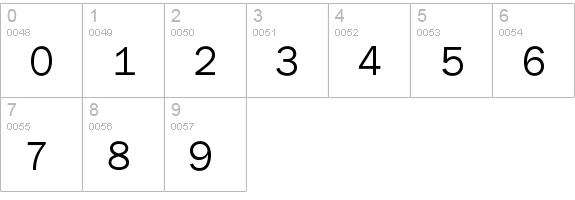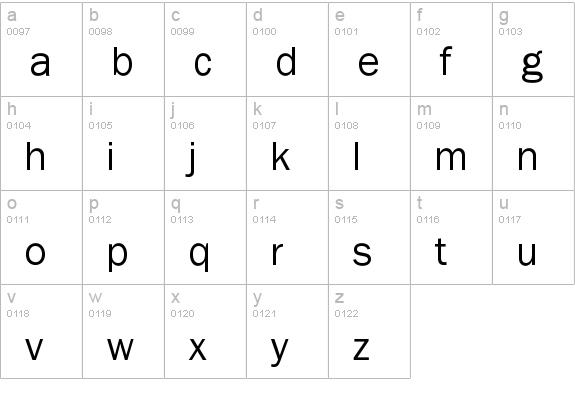
Franklin Gothic* Book Font Details
Franklin Gothic* Book is a comfortable, highly readable variant in the Franklin typeface family \xE2\x80\x94 well suited to long-form body text, articles, and editorial content.
Franklin Gothic Book is a classic and elegant font that exudes sophistication and timelessness. With its clean lines and balanced proportions, this versatile typeface is perfect for a wide range of design projects, from editorial layouts to branding and signage. The Franklin Gothic Book font offers a sense of modernity and professionalism while maintaining a sense of tradition and authority. Its sleek and readable appearance makes it an excellent choice for body text as well as headlines and titles. Best of all, Franklin Gothic Book is available for free download at FontsMarket.com, allowing designers and creators to access this high-quality font without any cost. Whether you're working on a personal project or a professional assignment, Franklin Gothic Book is a reliable and stylish choice that will elevate your design work to the next level.